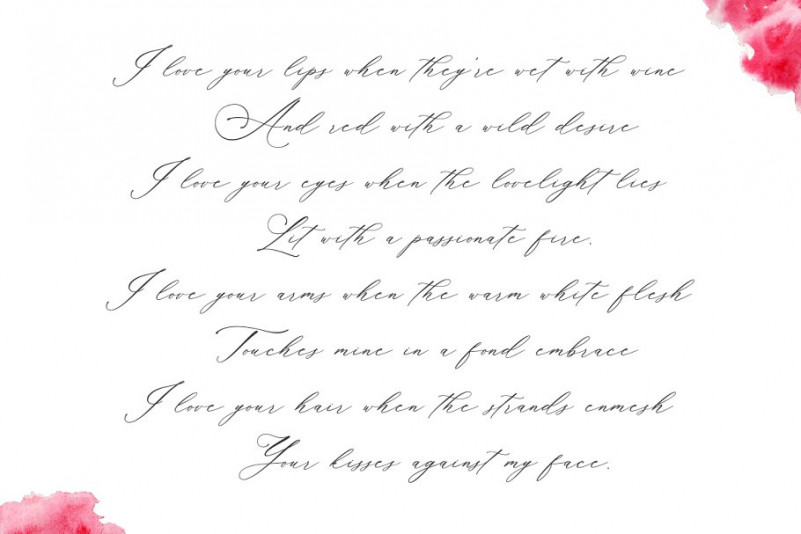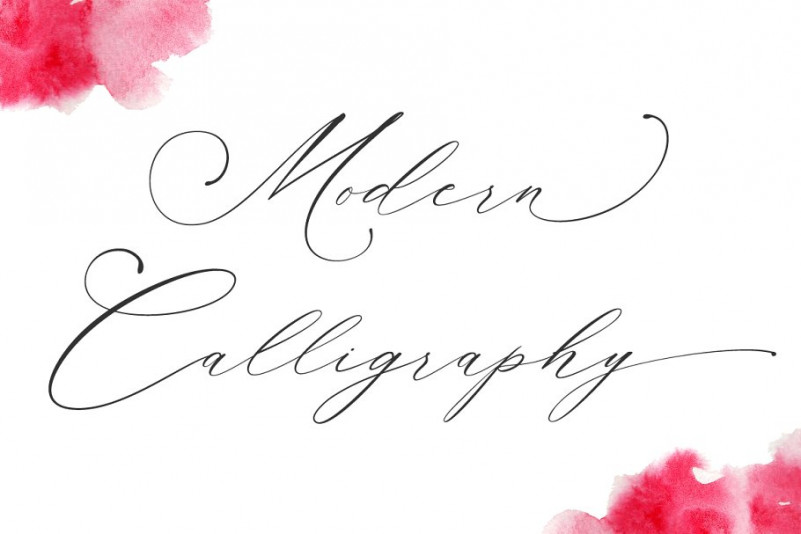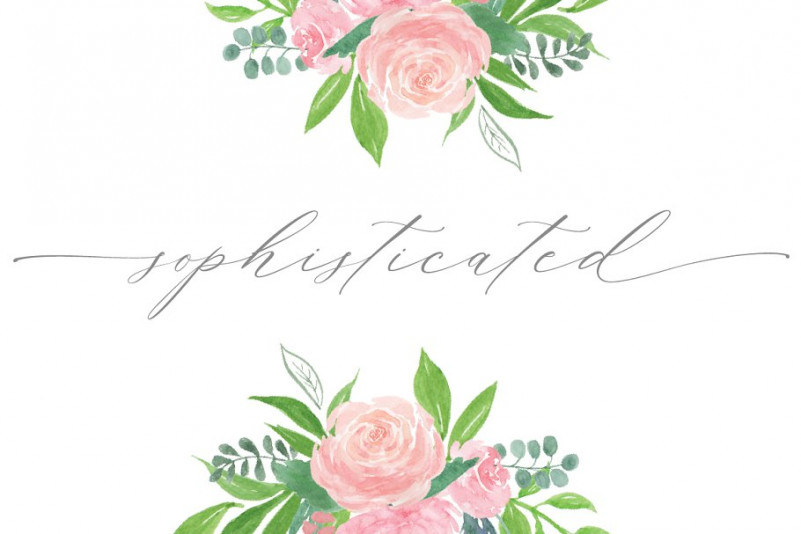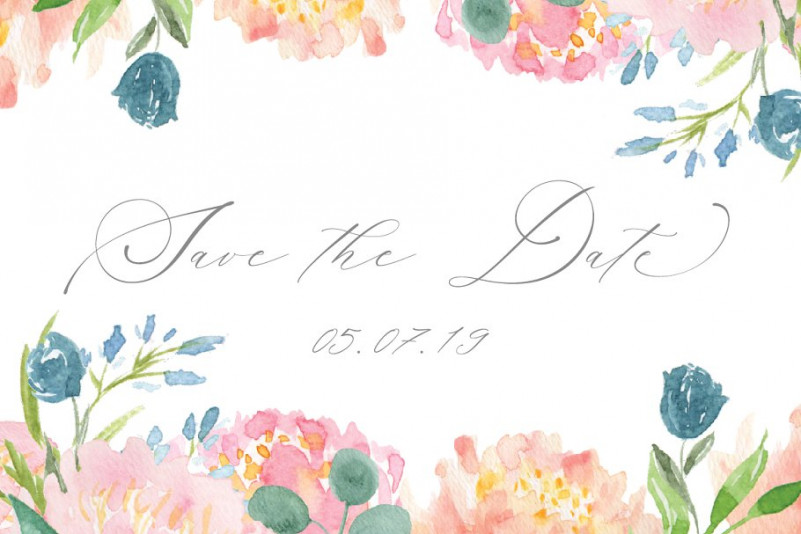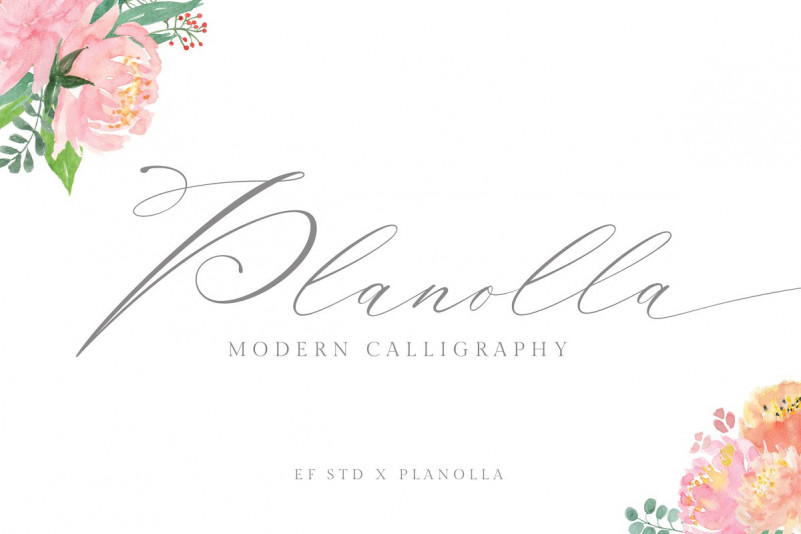
Planolla Calligraphy Font
This is a modern calligraphy typeface, it’s a stylish script font. It has a modern and classy look which can be used to add an amazing personal touch to your designs. Introducing Planolla Font. It’s a collaboration font with watercolor artist Planolla, modern style font Calligraphy is perfect for wedding invitations, branding, business cards, logos, and more.